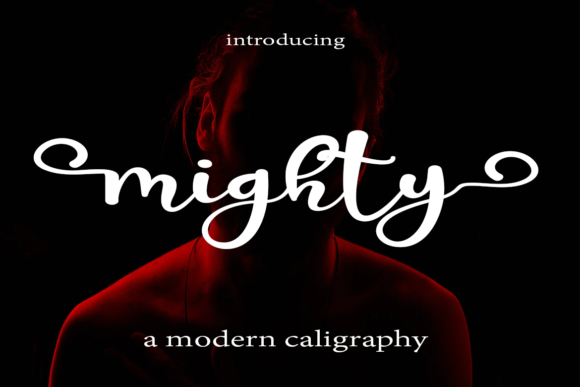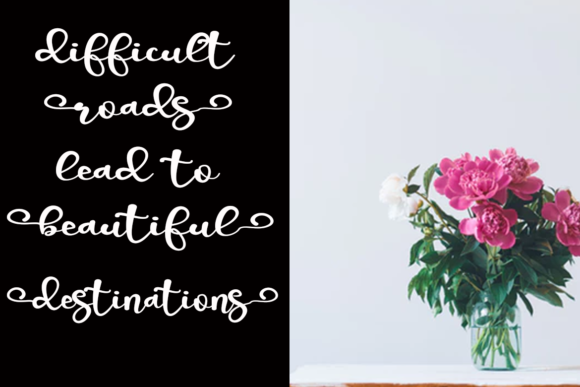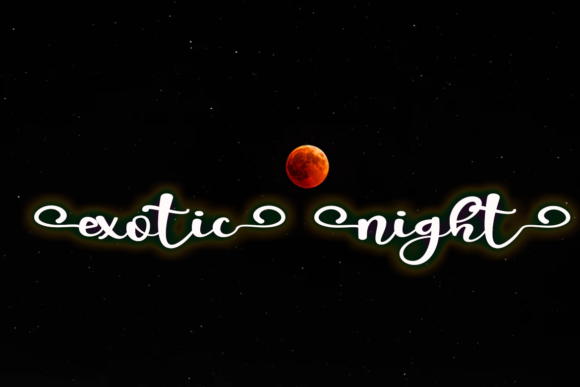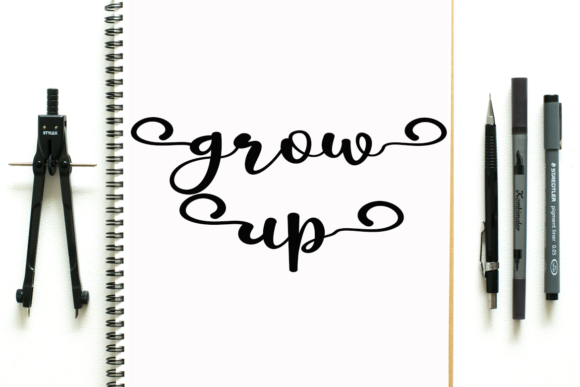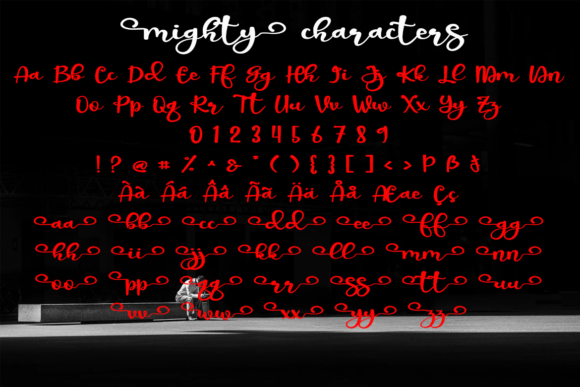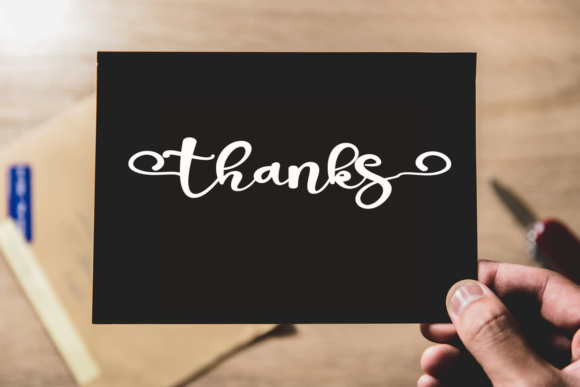
Mighty Font
About Mighty Font
“Mighty” sounds like a charming and elegant handwritten font that brings a touch of sophistication to a wide range of design projects. Here are some reasons why this font is likely to captivate designers:
Charming and Elegant: The font’s charming and elegant style makes it a perfect choice for designs that require a handwritten touch with a sense of refinement and grace.
Versatility: “Mighty” is a versatile font that can be used for various occasions and purposes, from formal events like weddings and thank you cards to creative projects such as quotes and greeting cards.
Smooth Lines and Varying Baseline: The font’s smooth lines and varying baseline add a sense of fluidity and movement, enhancing the overall aesthetics of the text and making it visually appealing.
Gorgeous Glyphs and Stunning Alternates: With its beautiful glyphs and stunning alternates, “Mighty” offers a variety of design options, allowing designers to customize and create unique and eye-catching compositions.
Wedding Invitations: “Mighty” is an excellent choice for designing elegant and memorable wedding invitations that capture the joy and romance of the special day.
Thank You Cards: The font’s elegant and charming appearance makes it suitable for expressing gratitude and appreciation on thank you cards with a touch of sophistication.
Quotes and Greeting Cards: “Mighty” can be used to create beautiful typography art featuring inspiring quotes and phrases, as well as greeting cards for various occasions, adding a personal and heartfelt touch to the designs.
Logos and Business Cards: Businesses seeking an elegant and handcrafted look can use “Mighty” in their logos and business cards, adding a touch of uniqueness and charm to their brand identity.
Overall, “Mighty” is a delightful and versatile handwritten font that can elevate the aesthetic of various design projects, from formal to creative and artistic. Its charm, elegance, and attention to detail make it a stunning choice for wedding-related designs, thank you cards, quotes, greeting cards, logos, and more. Designers will undoubtedly appreciate the font’s smooth lines, varying baseline, gorgeous glyphs, and stunning alternates, enabling them to bring their creative visions to life with grace and style. Embrace the allure of “Mighty” and add a touch of handwritten elegance to your designs.